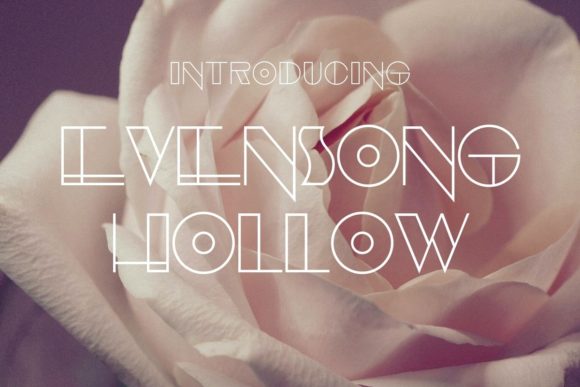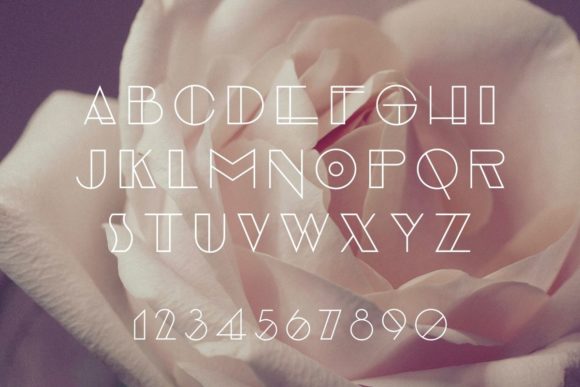
Evensong Hollow
About Evensong Hollow Font
Evensong Hollow is a decorative, line font. Its clean lines create beautiful geometric shapes that are inspired by the art deco era. This gorgeous font can be used for logos, brand identity, headings, websites and so much more!